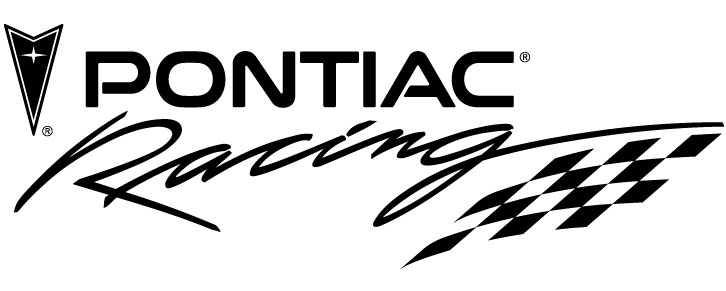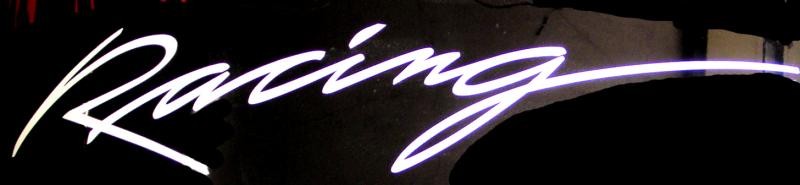
Is this an actual font?
Two fonts here actually - the "Racing" one, I'm pretty sure is an actual font, I just don't know what it is - if anyone recognizes it?
Second one, the tomasi - not sure if this is an actual font, or some custom work?
Anyone recognize it?
No idea on the first one. I usually use just that racing part which i got from brands of the world...
just had the same thing in a few weeks back for the racing one....couldn't find it anywhere....i ended up doing a rough trace to show as a sketch and then a clean version for the tees we printed..
Although it reminds me of the alphabets of Bob Behounek, (Sign DNA) I do not think it is a font.
I thought that at first too.
Letterhead Fonts Stanford Script isn't exactly the same but it could pass. At least it's an easy starting point if you wanted to edit it to make an exact match.
as far as the "racing" goes - while this particular one just needs the word "racing" - I was hoping to find a close (not exact) font as I have other customers that use a very similar font in a few other things (now that I think about it.. they are all involved in racing too :tongue: )
I didn't think of looking in the clipart books for some hand-lettered fonts, that just might be the ticket!
yep, you were all dead-on on that one.
The "racing" from pontiac was an exact match.
I'd still like to find a similar font though.